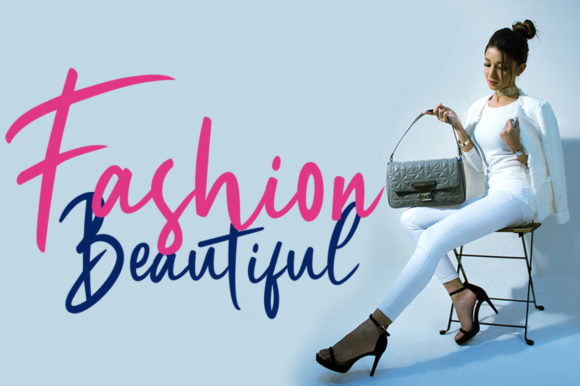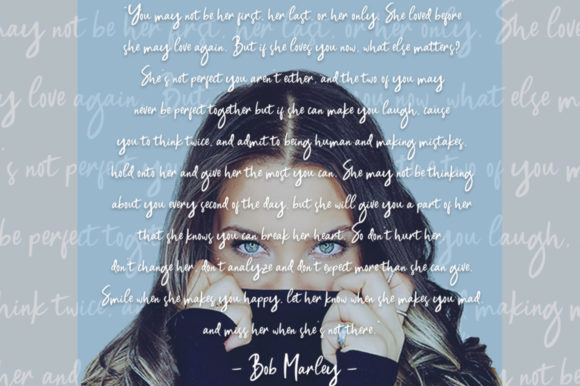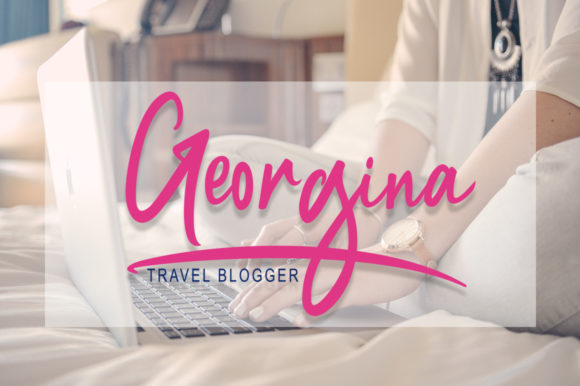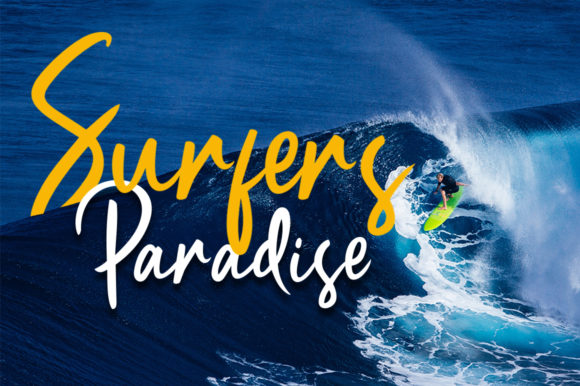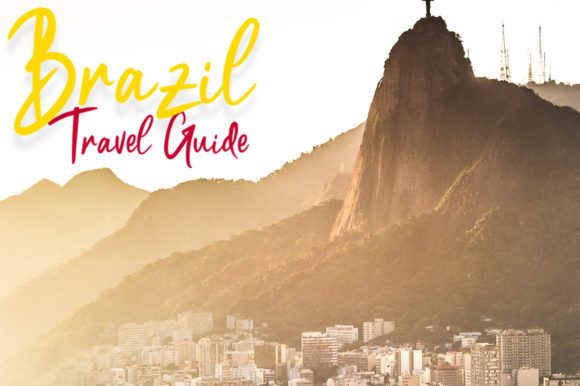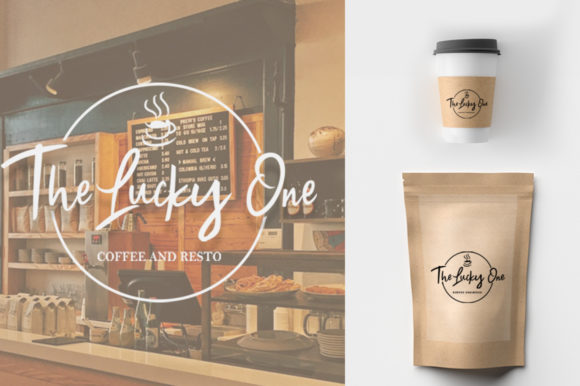
Introduction to Magistoe Script Font
The Magistoe is a fresh and modern script font.
It has a handmade calligraphy style, decorative characters and a dancing baseline It’s beautiful on invitations, greeting cards, branding materials, business cards, quotes, posters, and more.
Key Features of Magistoe Script Font
Why Choose Magistoe Script Font?
Magistoe Script Font offers exceptional quality and versatility, making it a valuable addition to your design toolkit. Whether you’re creating for personal projects or commercial use, Magistoe Script Font delivers professional results.